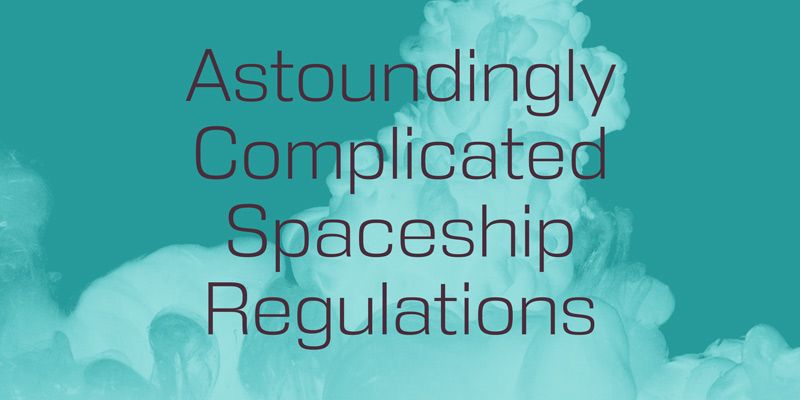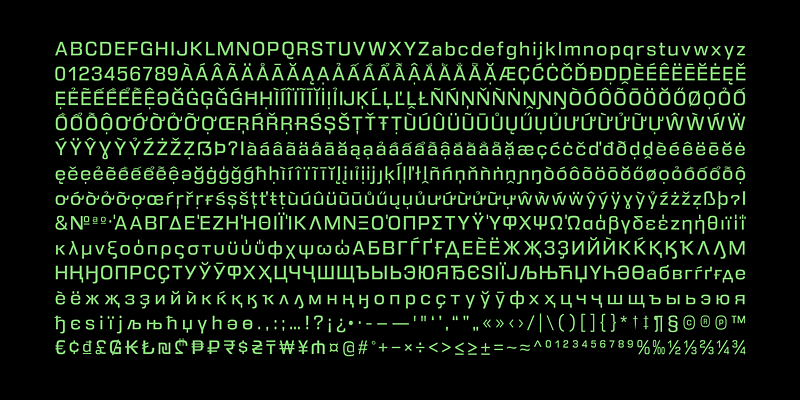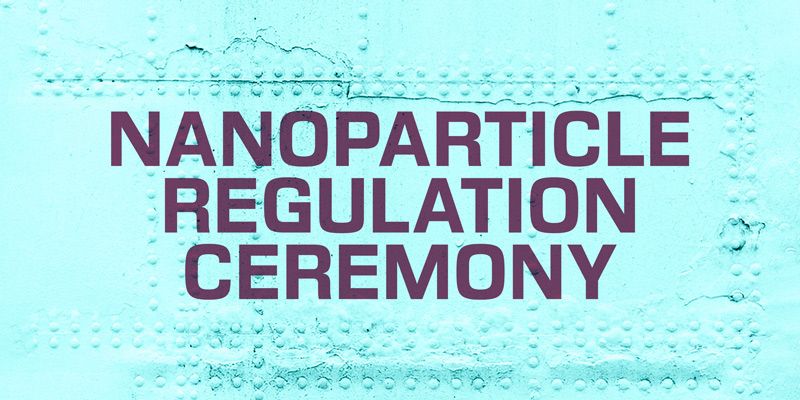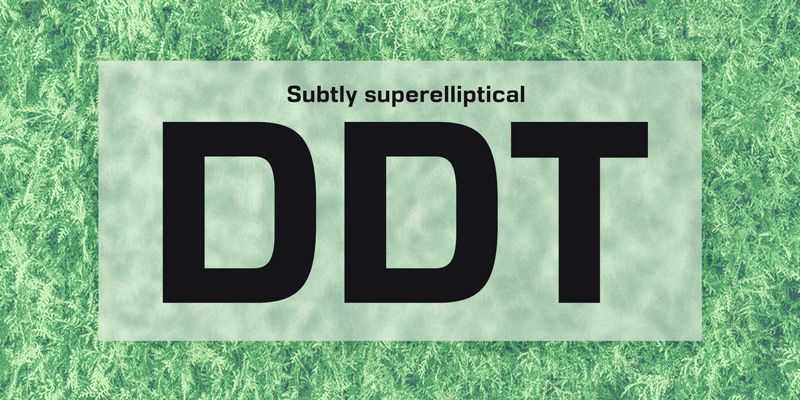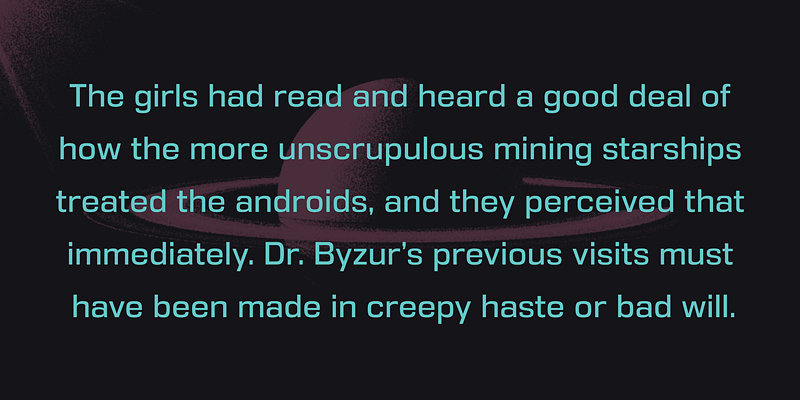
DDT places a controlled superellipse between familiar corporate sans-serif curves and squared technical lettering. The resulting shapes feel engineered but remain conventional enough for everyday use. That balance is valuable to aerospace firms, mobility systems, hardware makers, and research organizations whose identities have to work beyond a launch headline. DDT can move from vehicle names and exhibition graphics into brochures, captions, diagrams, and explanatory text without a sudden change of voice. Its technological character is most apparent in the rounded-square forms, where straight and curved sections meet with unusual restraint. Use the family when a project needs a recognizable engineering accent across both public-facing and detailed communication.